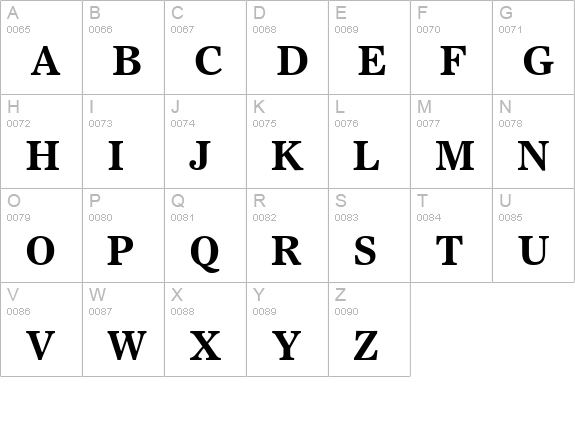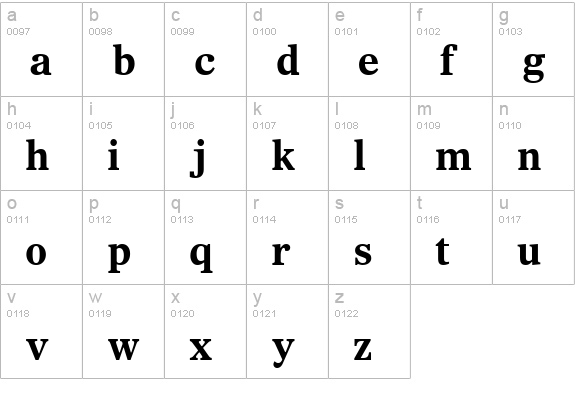
Sterling SSi Bold Font Details
Sterling SSi Bold is a strong, high-contrast variant in the Sterling typeface family \xE2\x80\x94 well suited to headlines, attention-grabbing titles, and strong calls-to-action.
The Sterling SSi Bold font is a modern and sleek typeface that exudes sophistication and style. Its bold and striking design makes it perfect for headlines, titles, and other attention-grabbing text. The clean lines and sharp edges give this font a contemporary feel, while the bold weight adds a touch of drama and impact to any design. Best of all, the Sterling SSi Bold font is available for free download at FontsMarket.com. Whether you're a professional designer looking to add a fresh new font to your collection or a casual user in need of a standout typeface for a project, this font is sure to impress. Don't miss out on the opportunity to enhance your designs with the elegance and versatility of the Sterling SSi Bold font - download it for free today!